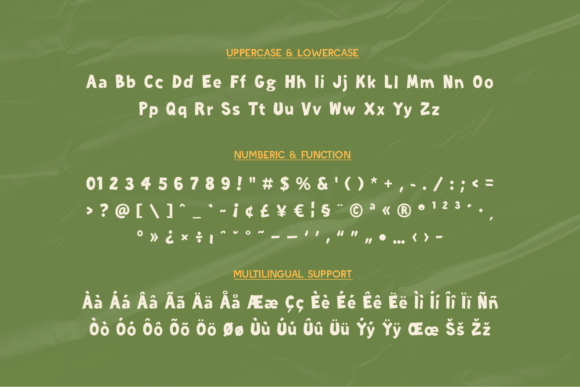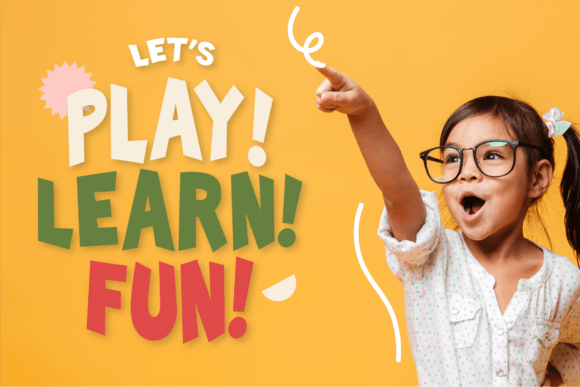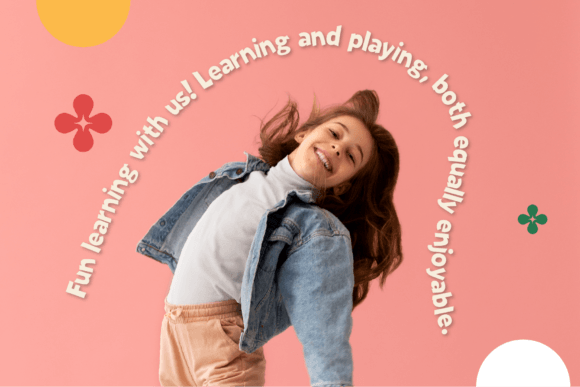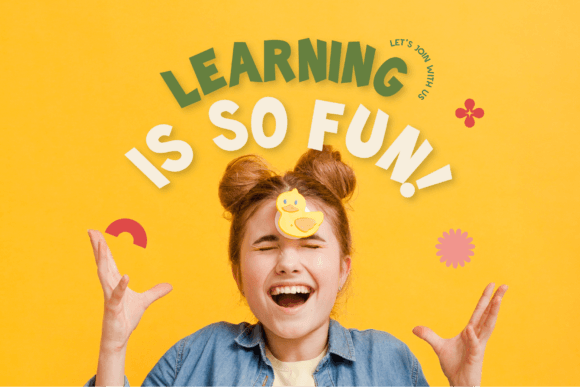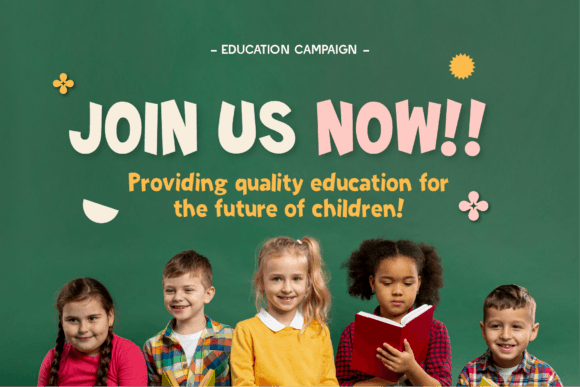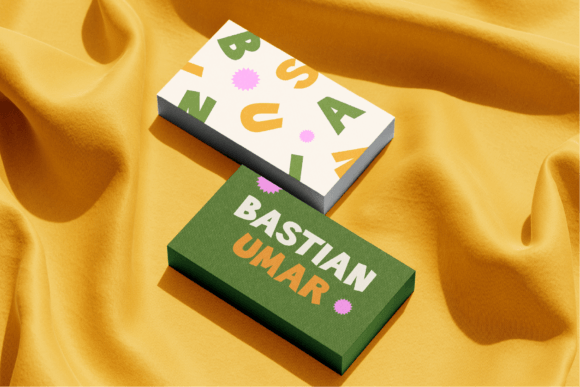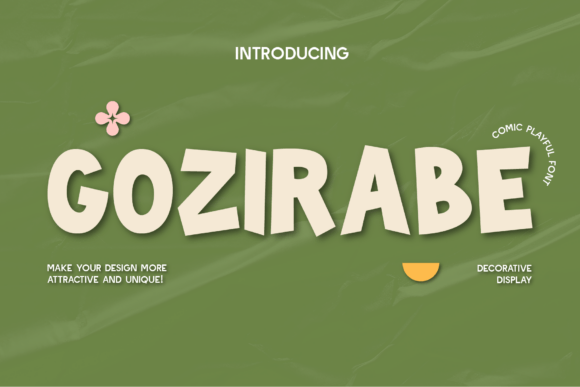
Introducing Gozirabe Font: The Ultimate Choice for Playful and Quirky Designs
Are you tired of using the same old fonts for your designs? Do you want to add a touch of playfulness and quirkiness to your projects? Look no further than Gozirabe Font, a vibrant cartoon typeface that’s sure to bring joy and energy to any design. In this article, we’ll take a closer look at Gozirabe Font, its unique features, and why it’s the perfect choice for designers and crafters looking to add some fun to their work.
The Unique Characteristics of Gozirabe Font
Gozirabe Font is a one-of-a-kind typeface that’s designed to capture a playful and carefree spirit. Its sharp edges and irregular baseline give it a dynamic appearance that’s perfect for projects that aim to be lighthearted and fun. The font’s unique balance between its sharp forms and carefree structure makes it stand out from other fonts, making it ideal for designers who want to add a touch of whimsy to their work.
Perfect for Children’s Books, Comics, and Playful Branding
Gozirabe Font is particularly well-suited for projects that require a playful and youthful vibe. Its fun and quirky design makes it perfect for children’s books, comics, and playful branding. The font’s energetic and lively appearance is sure to capture the attention of young readers and make your project stand out from the crowd. Whether you’re creating a children’s book, a comic book, or a brand identity, Gozirabe Font is the perfect choice.
Key Features of Gozirabe Font
- Sharp Edges: Gozirabe Font features sharp edges that give it a bold and dynamic appearance.
- Irregular Baseline: The font’s irregular baseline adds to its playful and carefree spirit.
- Unique Balance: The font’s unique balance between sharp forms and carefree structure makes it stand out from other fonts.
- Vibrant Cartoon Typeface: Gozirabe Font is a vibrant cartoon typeface that’s designed to bring joy and energy to any project.
Why Designers and Crafters Love Gozirabe Font
Designers and crafters love Gozirabe Font for its unique and playful design. The font’s ability to add a touch of whimsy and fun to any project makes it a popular choice among creatives. Here are just a few reasons why designers and crafters love Gozirabe Font:
- Easy to Read: Despite its playful design, Gozirabe Font is easy to read, making it perfect for projects that require a fun and engaging font.
- Versatile: Gozirabe Font is versatile and can be used for a wide range of projects, from children’s books to playful branding.
- High-Quality: Gozirabe Font is a high-quality font that’s designed to deliver exceptional results.
Gozirabe Font is a vibrant cartoon typeface that’s designed to bring joy and quirky vibes to any project. Its unique balance between sharp forms and carefree structure makes it perfect for projects that aim to be lighthearted and fun. Whether you’re a designer or crafter, Gozirabe Font is the perfect choice for adding a touch of whimsy and fun to your work. With its ease of use, versatility, and high-quality design, Gozirabe Font is sure to become a favorite among creatives.